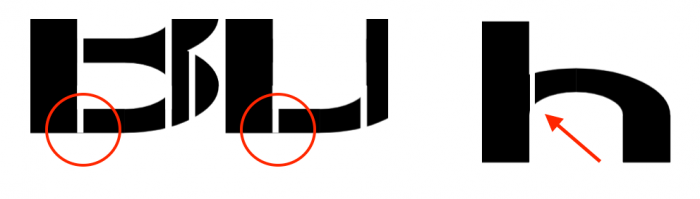
This looks really cool, especially the white stripes on top of the black letters.
Color fonts don't really show up correctly in the FontStruct Maker without it all becoming one color…
Also, the lowercase j seems to overlap certain letters in words like longjump and logjam… I wonder if an alternate j would solve such combinations of letters…
Thanks. Lowercase j is now fixed.
Some letters have a little misadjust at the bottom (B, D, V, Z and v) and I thought the "h" could has this little white line here. What do you think?
The downloaded font doesn't have those, I think it's the FS preview's bug.
Nice spot on the h, thx, fixing it now ;)
...And the m?